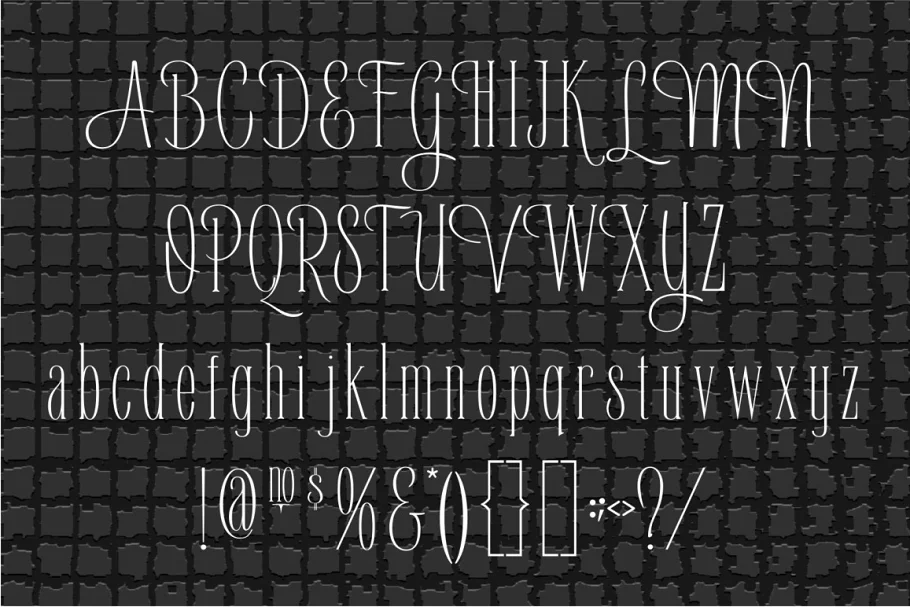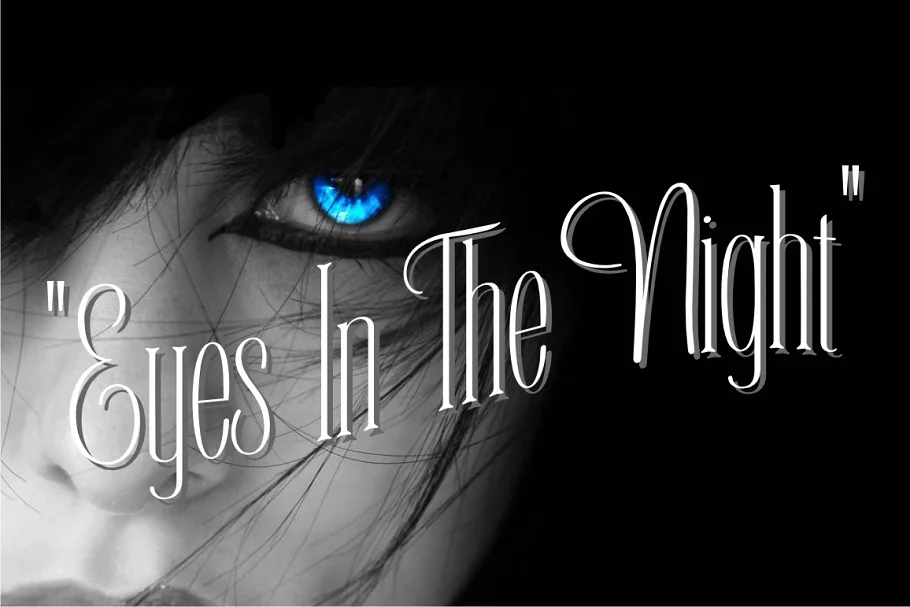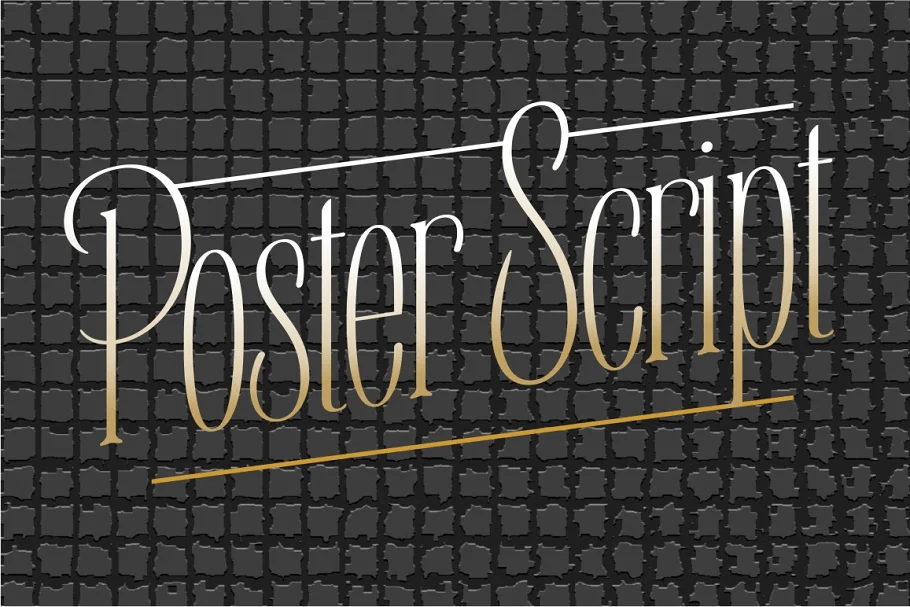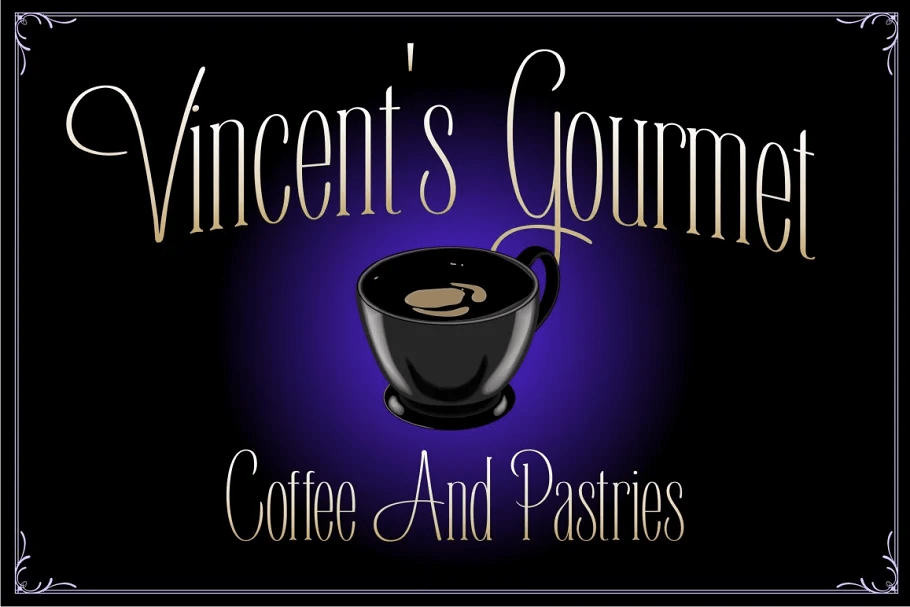
Poster Script draws it\’s inspiration from early 1900\’s movie posters. Combining script and condensed roman lettering, Poster script is unique and is sure to have many applications.